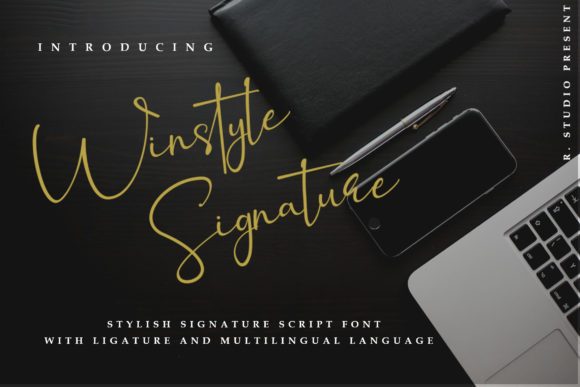
Winstyle Signature Font
The Winstyle Signature is a stylish signature script. It has a natural writing style and will add a classy touch to your designs.
It’s perfect for branding, photography, invitations, quotes, watermarks, advertisements, product designs, labels, and much more!